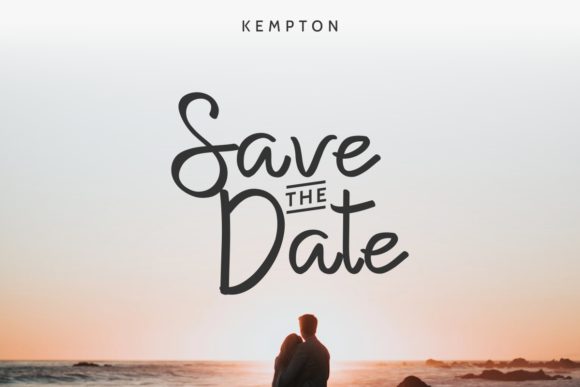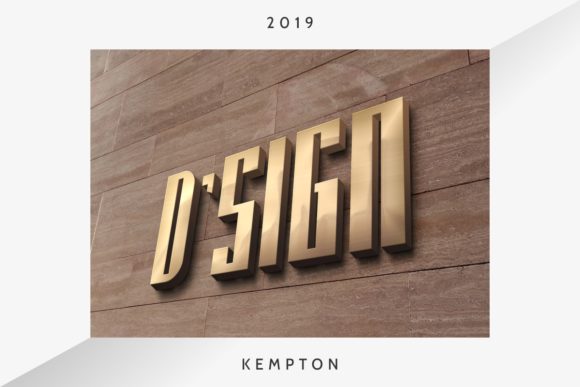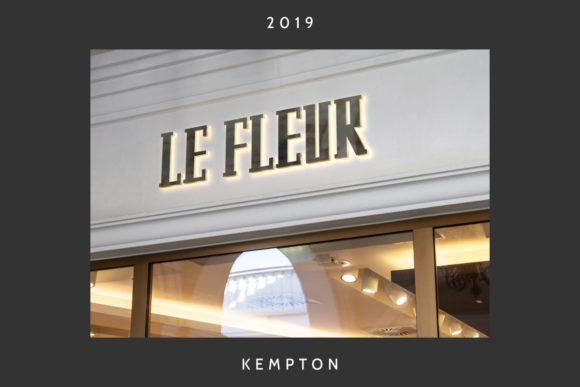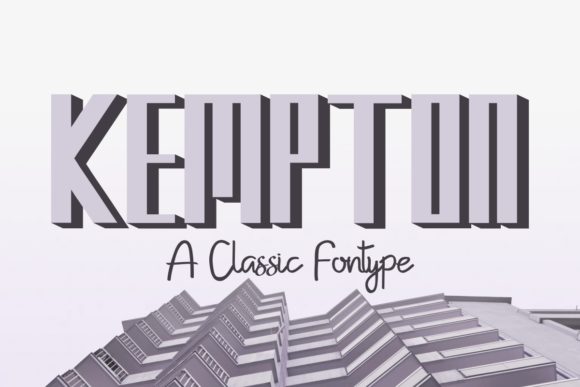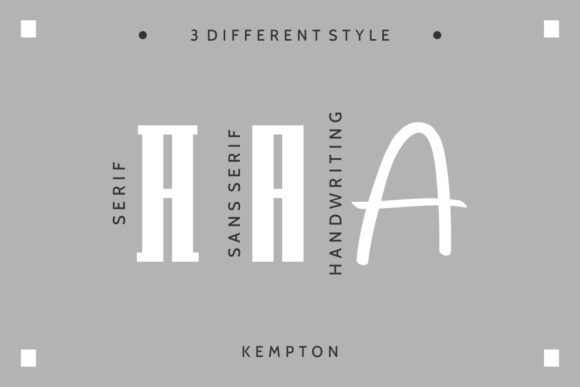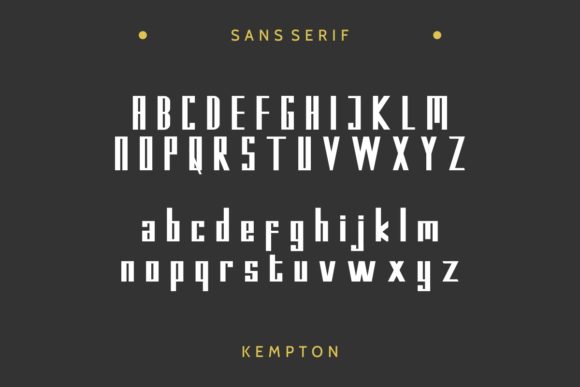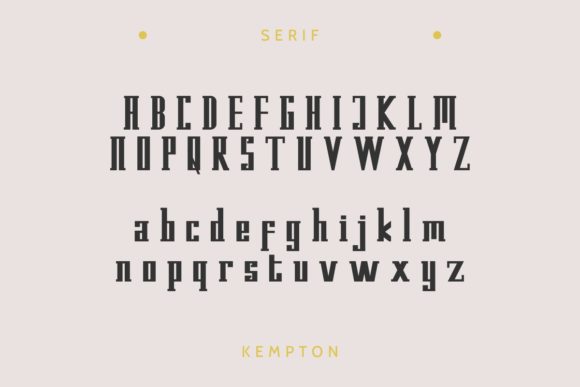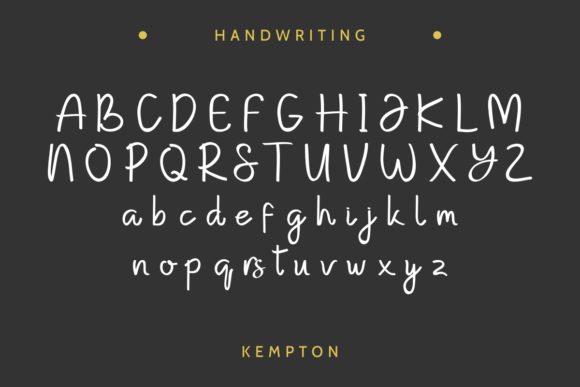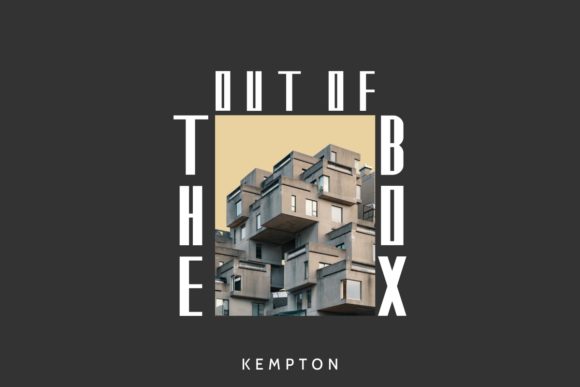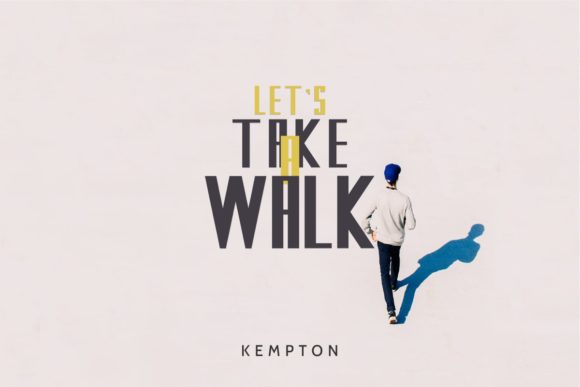
Kempton Duo Font
About Kempton Duo Font
Kempton is a fun and light font duo with a contemporary twist. Use it to turn any design project into an eye catcher!